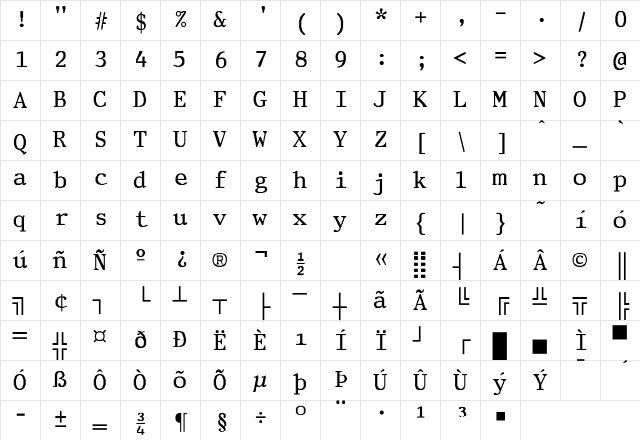
BATTERSEA Bold Regular
Design Context for BATTERSEA Bold
BATTERSEA Bold is a composed and adaptable typeface that performs quietly and consistently across a wide range of design contexts. Its bold stroke weight gives it real presence on the page.